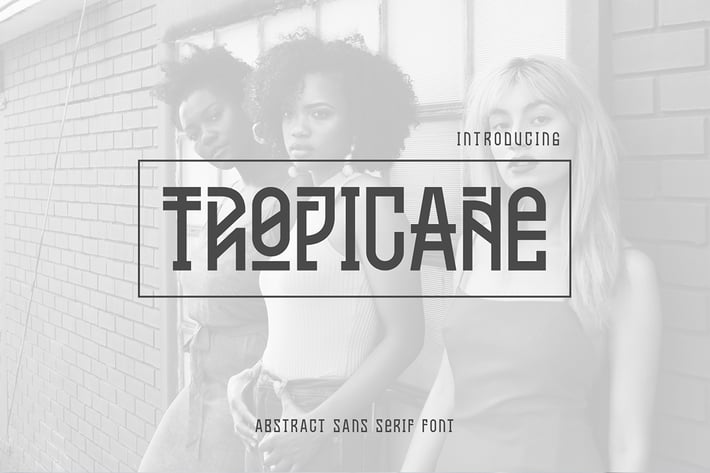
Tropicane Typeface
Tropicane is an abstract-sans serif font. Designed with a combination of sans serif, electro, and traditional taste. Good shapes, specifically designed for display or headline. Fashionable for magazine header, label, minimalism print design, flyer, poster, logo, t-shirt, and branding.